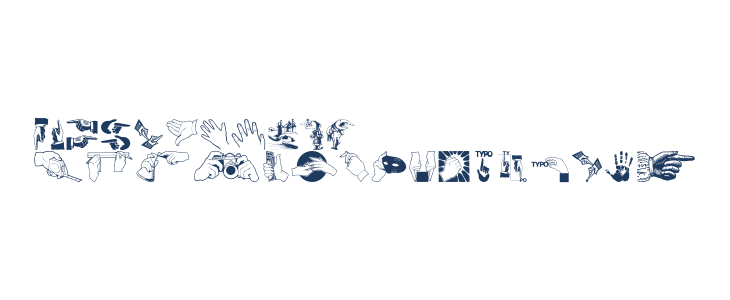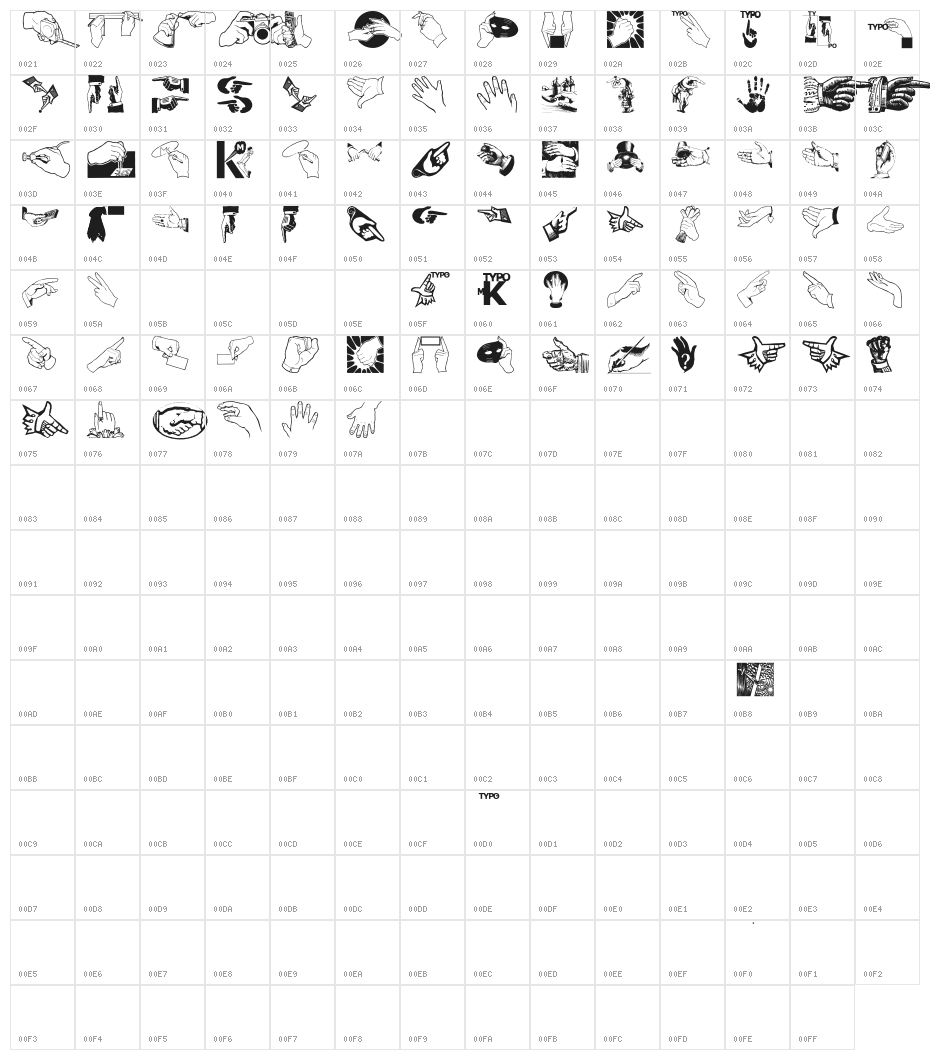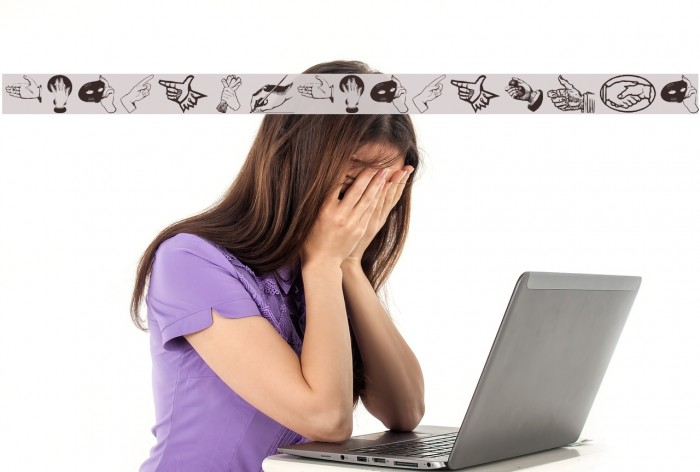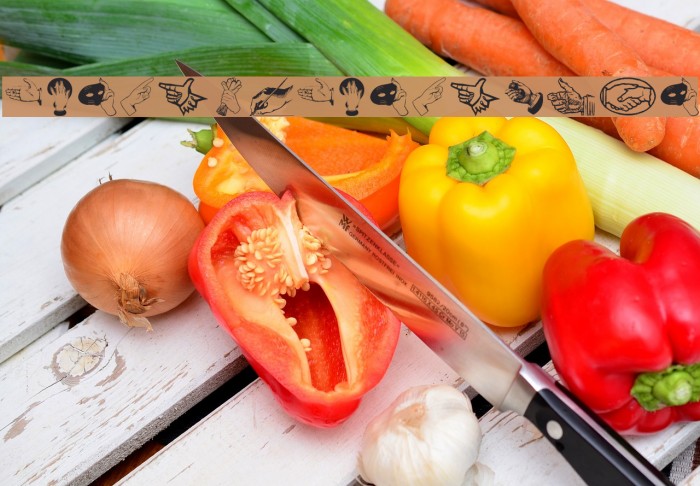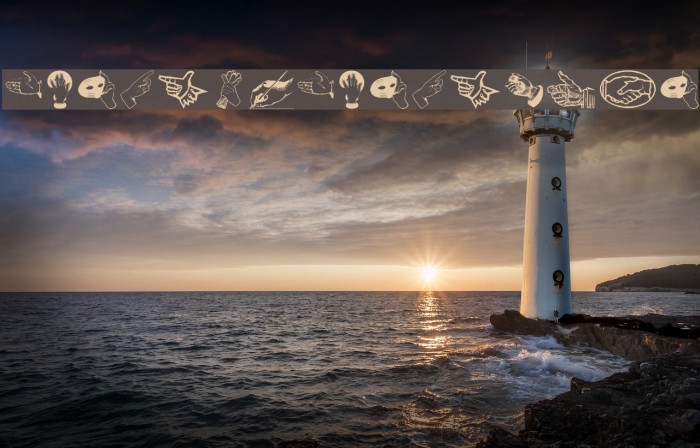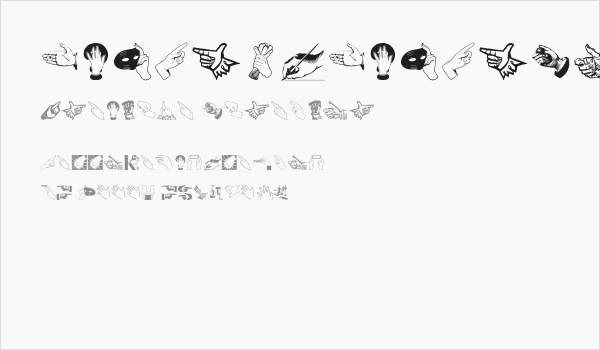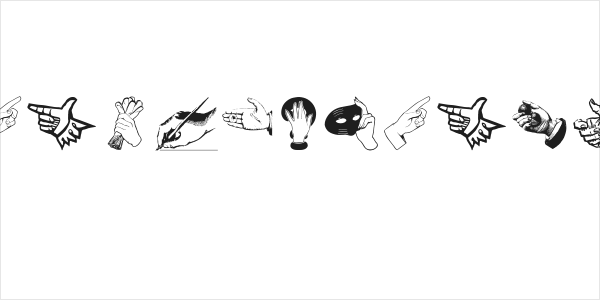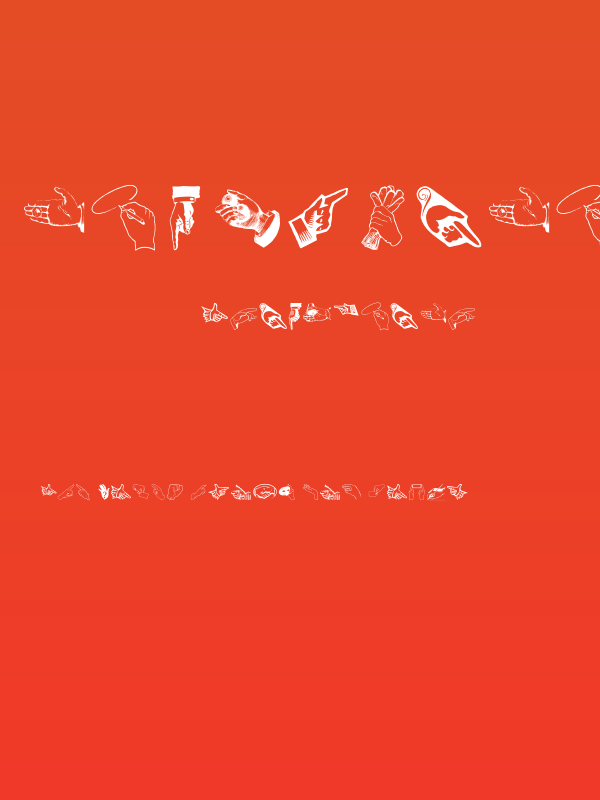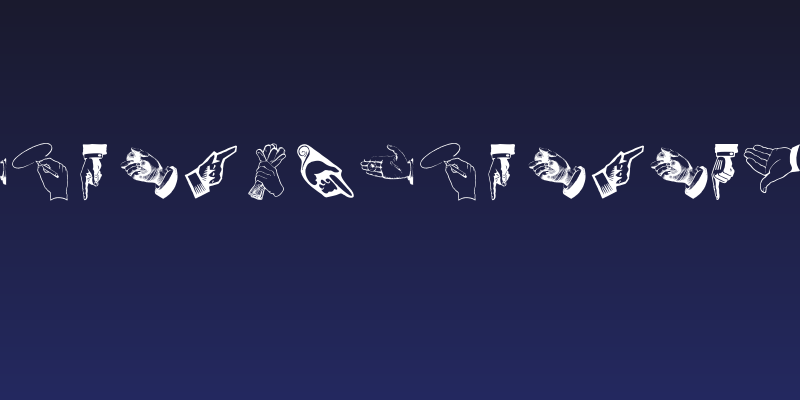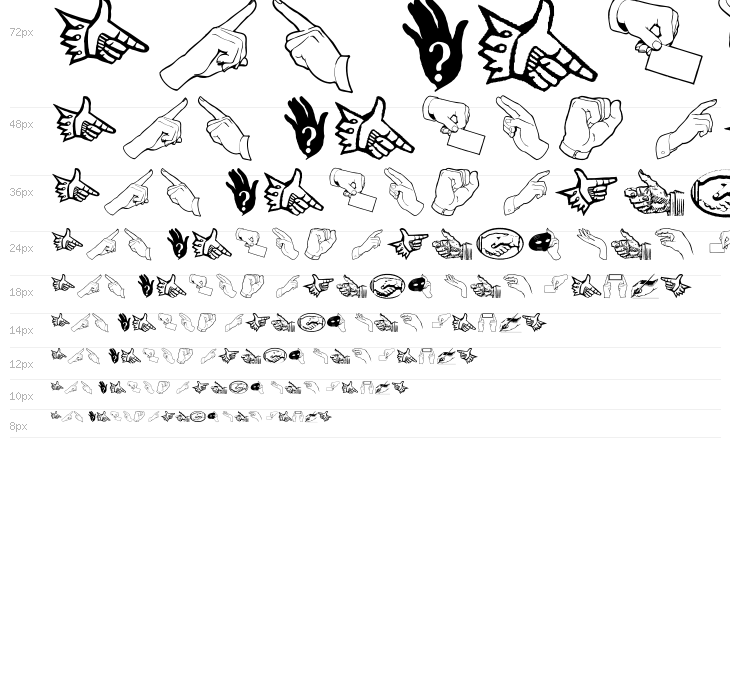
HandsUpHandsDown Font
HandsUpHandsDown Description
A decorative display font composed entirely of illustrated hand gestures and hand-related imagery, with each character represented by a unique hand pose or action, ranging from pointing and shaking hands to holding objects and making expressive signs. The illustrations vary in detail, some filled and bold, others outlined and light, creating a playful and eclectic visual style.
| Overall Style | Decorative, Playful, Eclectic |
| Use Case | Headlines, Logos, Posters, Themed graphics |
| Proposed Projects | Posters, album covers, event flyers, branding for creative agencies, educational materials, novelty signage. |